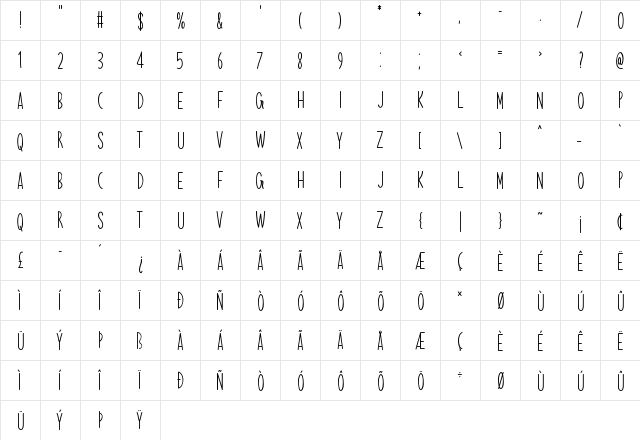
Valentine Things Regular
Design Context for Valentine Things Typeface
Valentine Things offers clean, dependable letterforms without strong stylistic allegiance, making it a practical choice for designers who need flexibility. Its slender proportions lend an understated elegance to any composition.